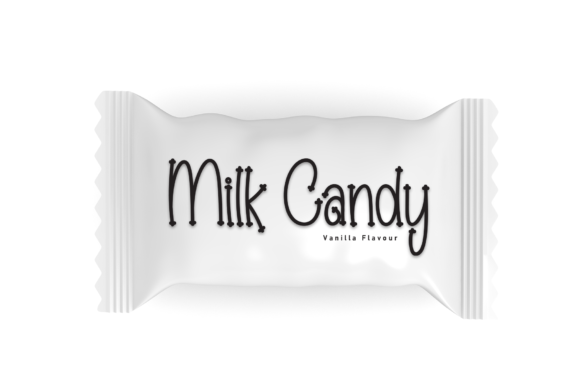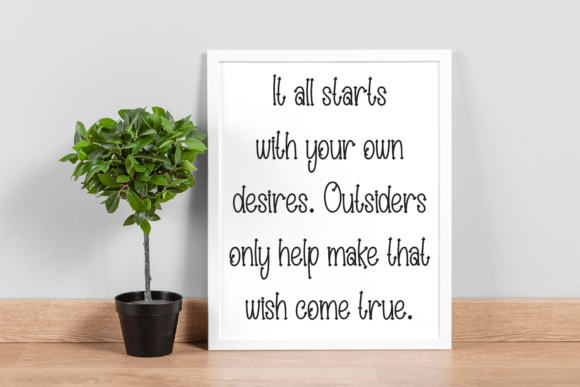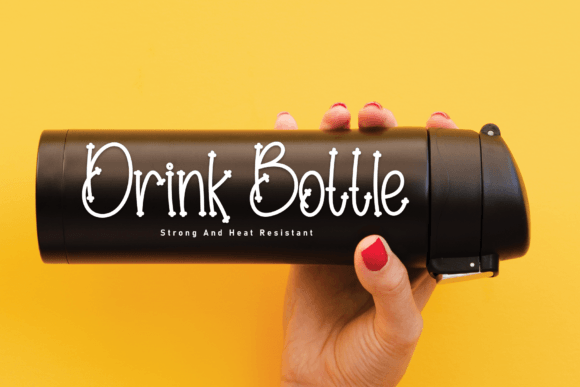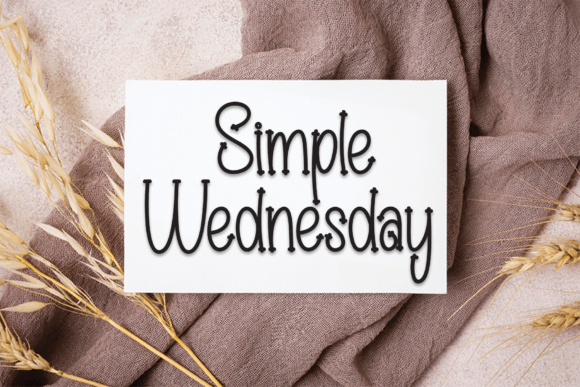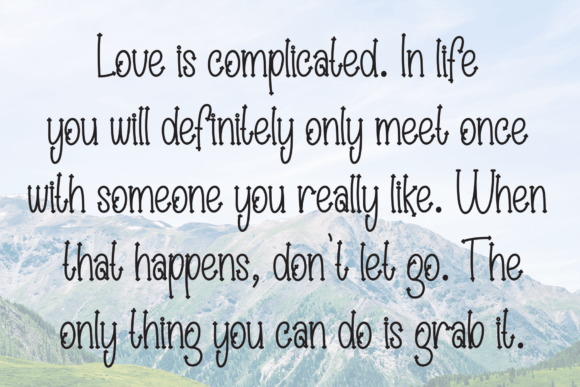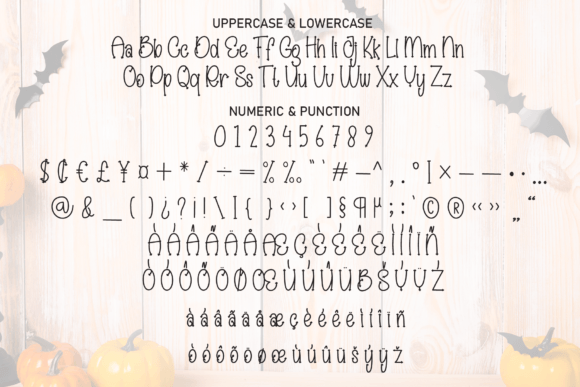
Happy Halloween Font: Add a Touch of Whimsy to Your Designs
As the spookiest time of the year approaches, designers and crafters are on the lookout for the perfect font to add a touch of whimsy to their Halloween-themed projects. Look no further than the Happy Halloween font, a casual handwritten font that captures the relaxed and friendly vibe of the holiday season. With its natural, flowing strokes, this font is ideal for personal projects, social media, and invitations, bringing an effortless, charming touch to any design.
The Characteristics of Happy Halloween Font
The Happy Halloween font is a beautiful example of a casual handwritten font, with a range of characteristics that make it perfect for a variety of design projects. Some of its key features include:
- Natural, flowing strokes: The Happy Halloween font features natural, flowing strokes that give it a relaxed and friendly feel. This makes it perfect for designs that need to convey a sense of warmth and approachability.
- Casual, handwritten style: The font’s casual, handwritten style makes it ideal for personal projects, social media, and invitations. It’s perfect for designers and crafters who want to add a touch of personality to their work.
- Effortless, charming touch: The Happy Halloween font brings an effortless, charming touch to any design. Its easygoing style adds warmth and authenticity, making it perfect for designers and crafters who want to create engaging and memorable designs.
Why Choose Happy Halloween Font?
So why choose the Happy Halloween font for your design projects? Here are just a few reasons:
- Perfect for Halloween-themed projects: The Happy Halloween font is specifically designed for Halloween-themed projects, making it the perfect choice for designers and crafters who want to create spooky and fun designs.
- Ideal for personal projects: The font’s casual, handwritten style makes it ideal for personal projects, such as party invitations, greeting cards, and social media graphics.
- Easy to read: The Happy Halloween font is easy to read, even at small sizes. This makes it perfect for designers and crafters who want to create designs that are both visually appealing and easy to understand.
- Versatile: The Happy Halloween font is versatile and can be used for a wide range of design projects, from invitations and greeting cards to social media graphics and blog posts.
How to Use Happy Halloween Font in Your Designs
Using the Happy Halloween font in your designs is easy. Here are a few tips:
- Pair it with other fonts: The Happy Halloween font can be paired with other fonts to create a unique and visually appealing design. Try pairing it with a bold, sans-serif font for a fun and playful look.
- Use it for headings and titles: The Happy Halloween font is perfect for headings and titles, where its natural, flowing strokes can add a touch of whimsy and personality to your design.
- Add it to your social media graphics: The Happy Halloween font is perfect for social media graphics, where its casual, handwritten style can add a touch of warmth and approachability to your designs.
Here are a few tips for designers and crafters who want to get the most out of the Happy Halloween font:
- Experiment with different colors: The Happy Halloween font looks great in a range of colors, from bright and bold to pastel and muted. Experiment with different colors to find the perfect look for your design.
- Use it for DIY projects: The Happy Halloween font is perfect for DIY projects, such as party invitations, greeting cards, and gift tags.
- Add it to your blog posts: The Happy Halloween font can add a touch of personality to your blog posts, making them more engaging and memorable for your readers.
The Happy Halloween font is a beautiful and versatile font that is perfect for designers and crafters who want to add a touch of whimsy to their Halloween-themed projects. With its natural, flowing strokes and casual, handwritten style, it’s ideal for personal projects, social media, and invitations. Whether you’re a designer or crafter, the Happy Halloween font is a great choice for anyone who wants to create engaging and memorable designs.